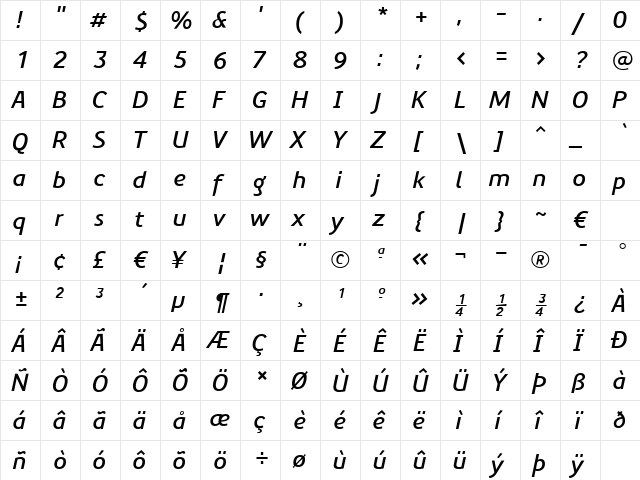
PreciousSansDemiBoldItalic Regular Font Preview
Design Context for PreciousSansDemiBoldItalic Typeface
PreciousSansDemiBoldItalic takes a measured approach to typography — its balanced proportions and neutral character make it a reliable workhorse for both digital and print work. The dynamic lean of this cut emphasises speed and emphasis in any layout. Its bold stroke weight gives it real presence on the page.
Pro Tip: Try PreciousSansDemiBoldItalic for annotation and caption copy alongside an upright companion — the contrast in angle creates a dynamic but ordered typographic system.